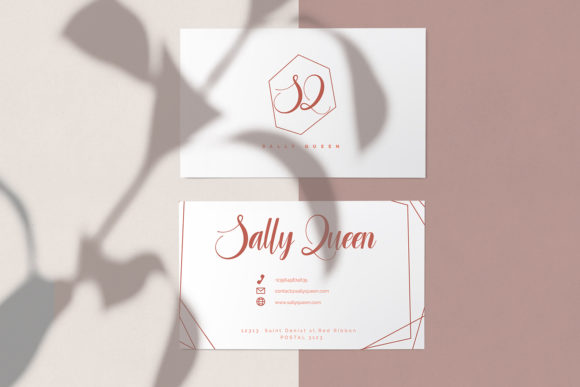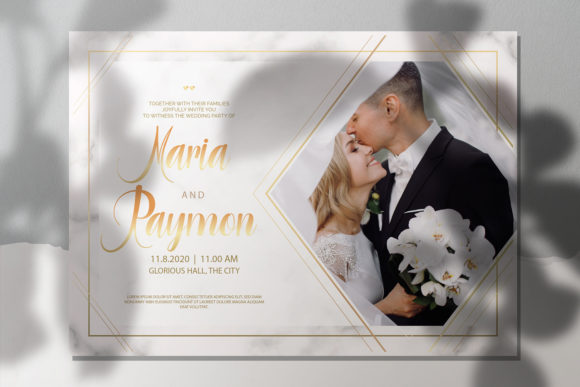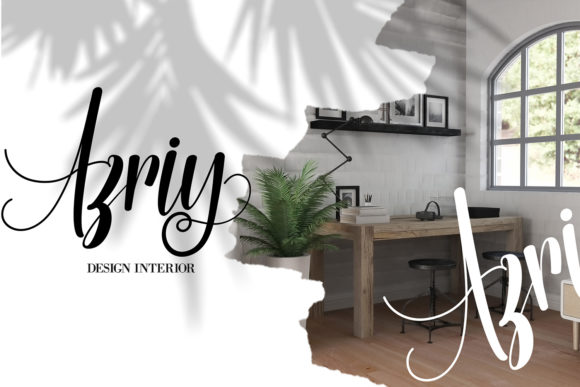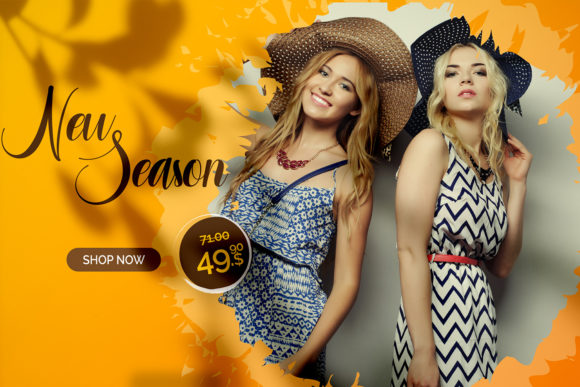
Hargrey Molly Font: A Stylish and Modern Script Font with a Unique Character
Are you a designer or crafter looking for a font that can add a touch of elegance and sophistication to your projects? Look no further than the Hargrey Molly Font. This stylish and modern script font is sure to capture your heart with its charming style and unique character.
What is Hargrey Molly Font?
Hargrey Molly Font is a beautiful script font that is perfect for a variety of design projects, including branding, packaging, and advertising. Its elegant and flowing lines make it ideal for creating eye-catching headlines, titles, and quotes. The font is designed to be highly legible, making it easy to read and understand, even at small sizes.
Key Features of Hargrey Molly Font
- Unique Character: Hargrey Molly Font has a distinct and stylish character that sets it apart from other script fonts. Its unique letterforms and flowing lines make it perfect for creating beautiful and eye-catching designs.
- Modern and Elegant: The font has a modern and elegant feel that makes it perfect for a variety of design projects. Its sleek lines and sophisticated style make it ideal for creating high-end designs.
- Highly Legible: Hargrey Molly Font is designed to be highly legible, making it easy to read and understand, even at small sizes. This makes it perfect for use in body text, as well as headlines and titles.
- Versatile: The font is highly versatile and can be used for a wide range of design projects, including branding, packaging, advertising, and more.
Uses of Hargrey Molly Font
Hargrey Molly Font is a highly versatile font that can be used for a wide range of design projects. Here are some of the most popular uses of the font:
- Branding: The font is perfect for creating beautiful and eye-catching logos, business cards, and other branding materials.
- Packaging: Hargrey Molly Font can be used to create stunning packaging designs that stand out on store shelves.
- Advertising: The font is ideal for creating eye-catching headlines and titles for advertising campaigns.
- Stationery: Hargrey Molly Font can be used to create beautiful stationery sets, including letterheads, envelopes, and notecards.
Why Choose Hargrey Molly Font?
There are many reasons why designers and crafters choose Hargrey Molly Font for their projects. Here are a few:
- Unique Style: The font has a unique and stylish character that sets it apart from other script fonts.
- Elegant and Sophisticated: Hargrey Molly Font has an elegant and sophisticated feel that makes it perfect for high-end designs.
- Highly Legible: The font is designed to be highly legible, making it easy to read and understand, even at small sizes.
- Versatile: Hargrey Molly Font can be used for a wide range of design projects, making it a great addition to any design library.
In conclusion, Hargrey Molly Font is a stylish and modern script font with a unique character that is sure to capture your heart. Its elegant and flowing lines make it perfect for creating eye-catching designs, and its highly legible design makes it easy to read and understand. Whether you’re a designer or crafter, Hargrey Molly Font is a great choice for any project that requires a touch of elegance and sophistication.